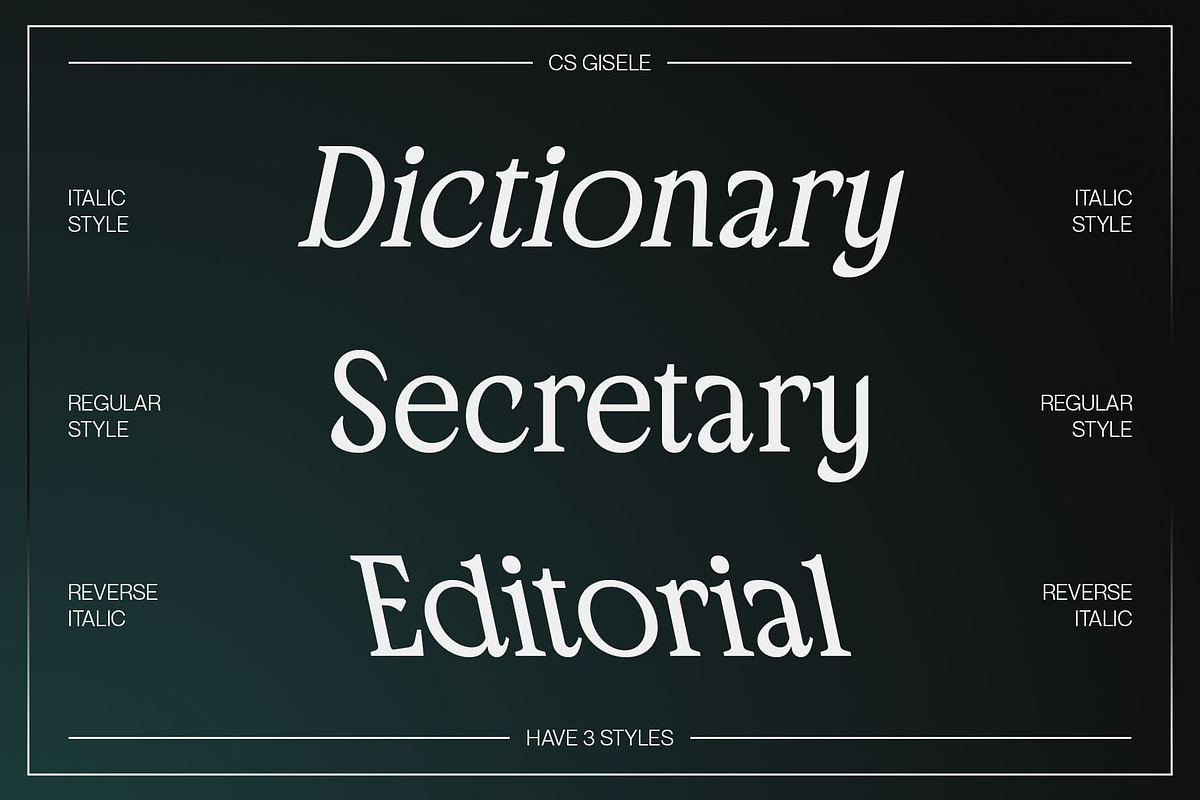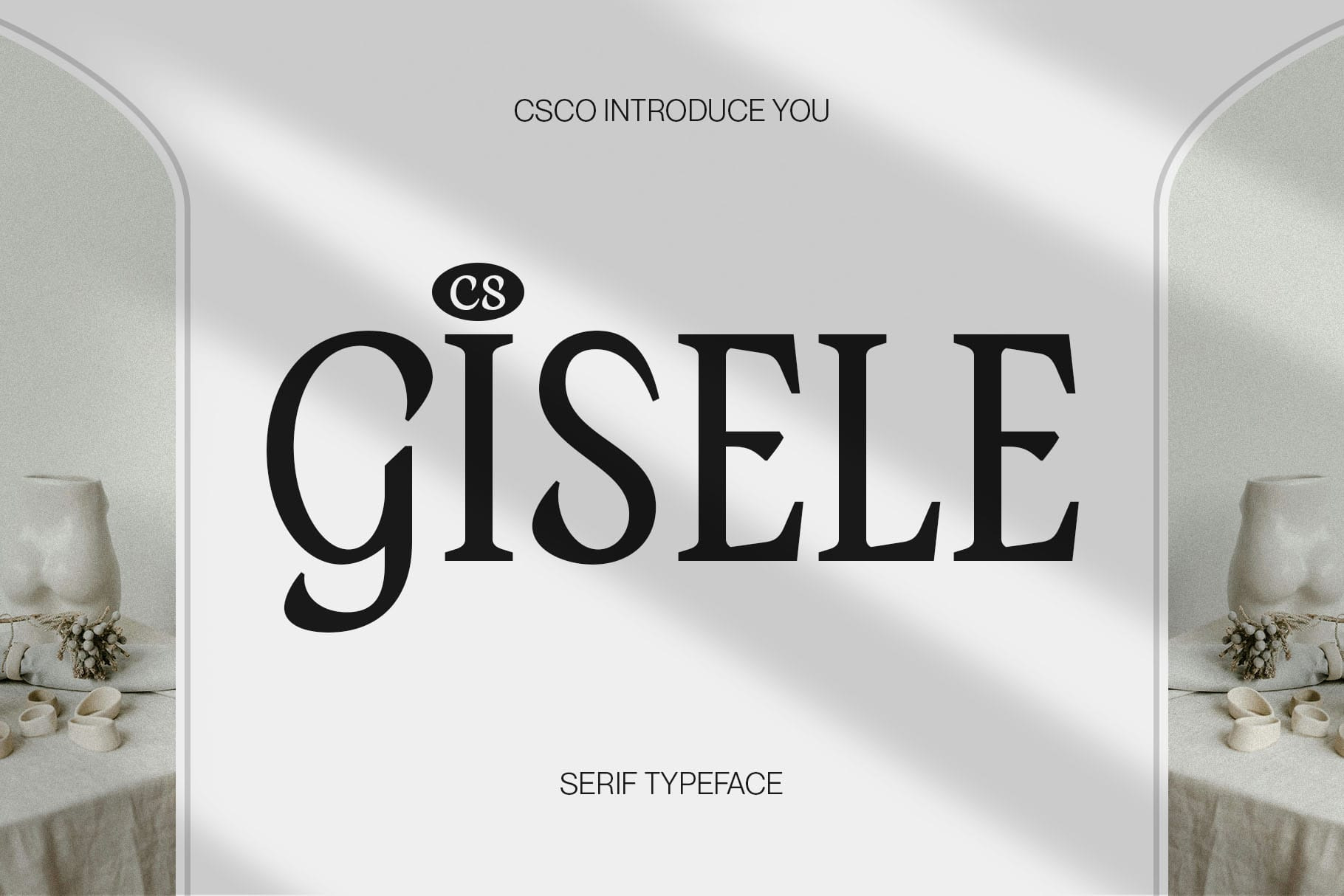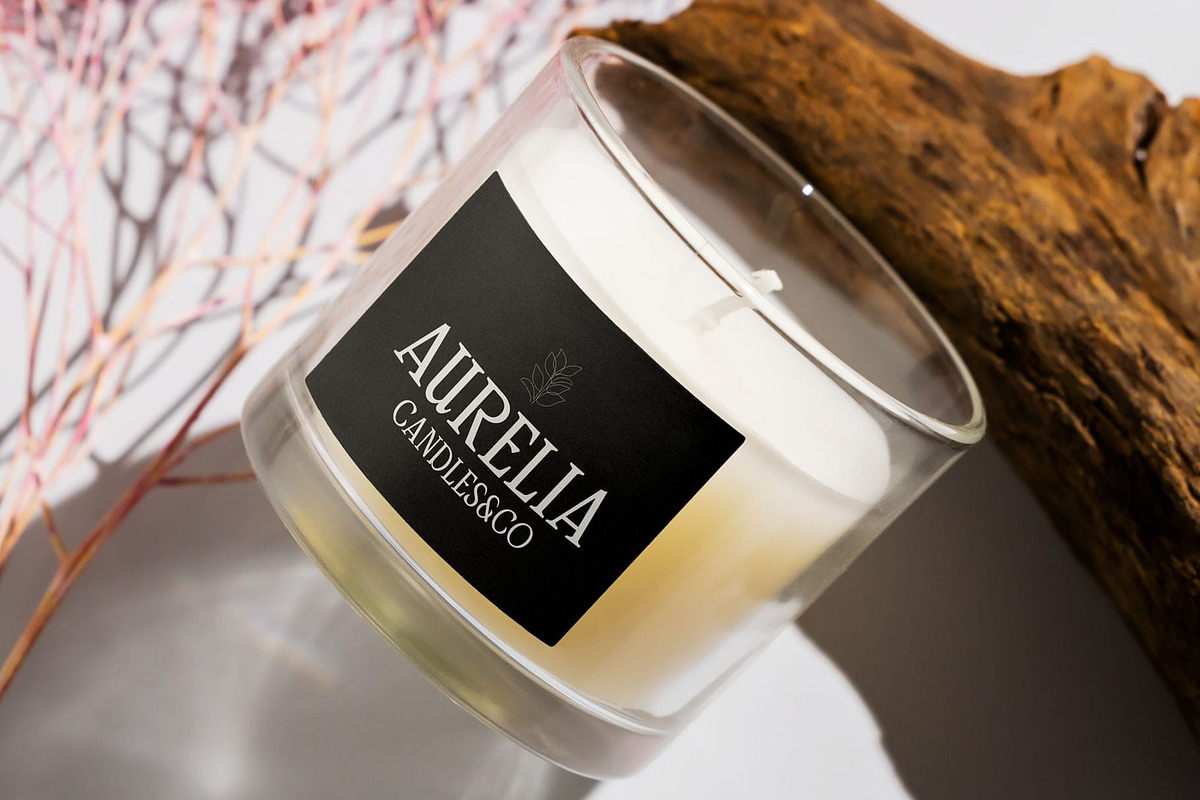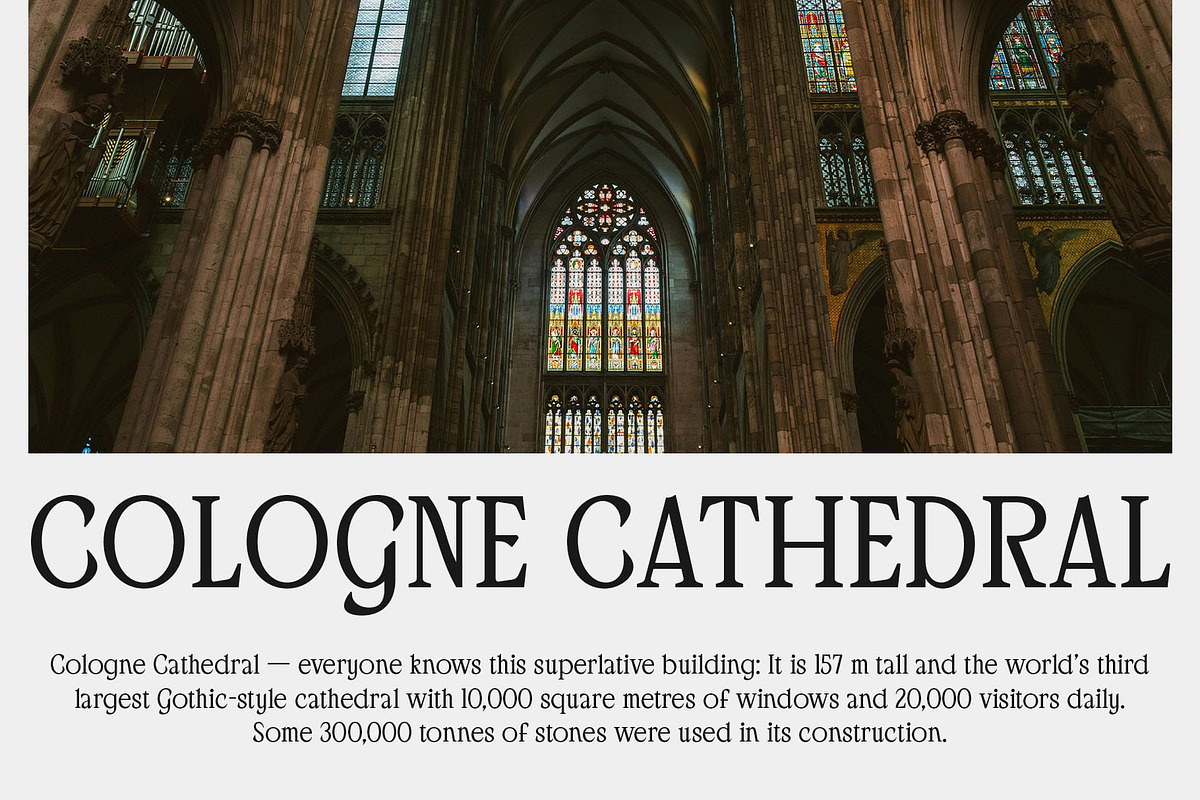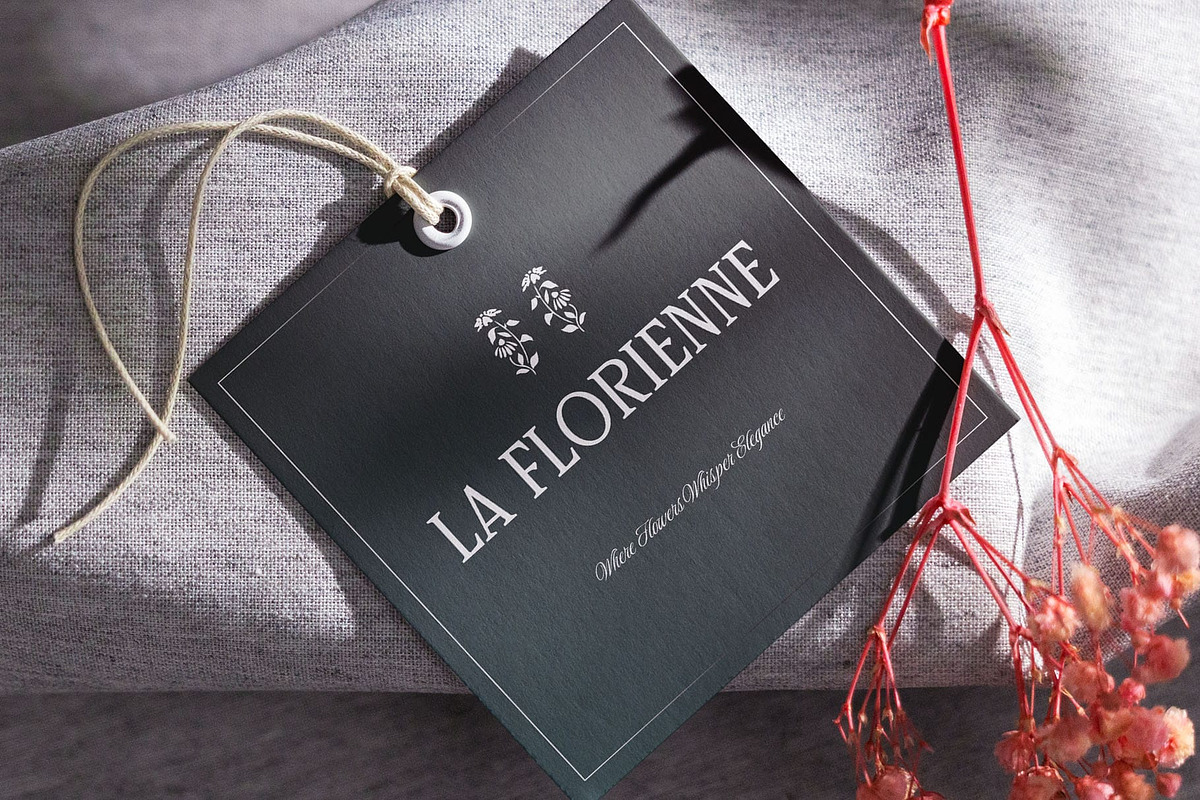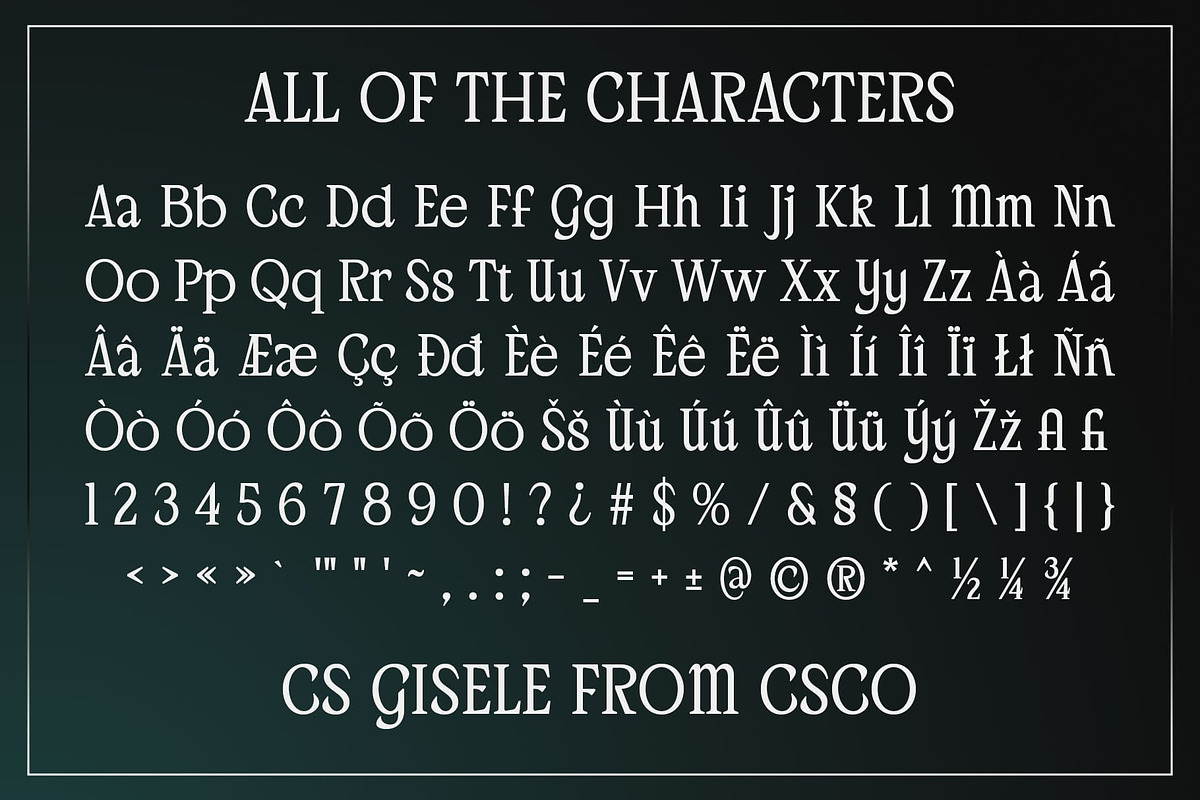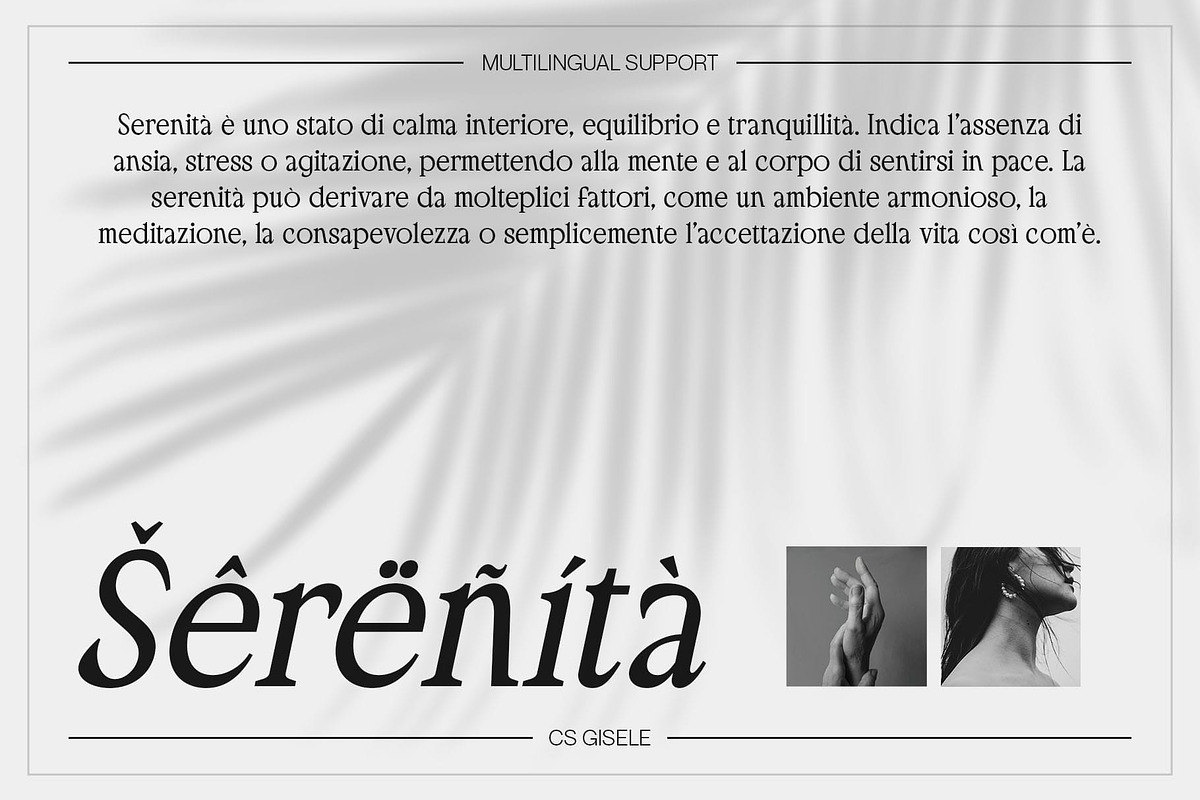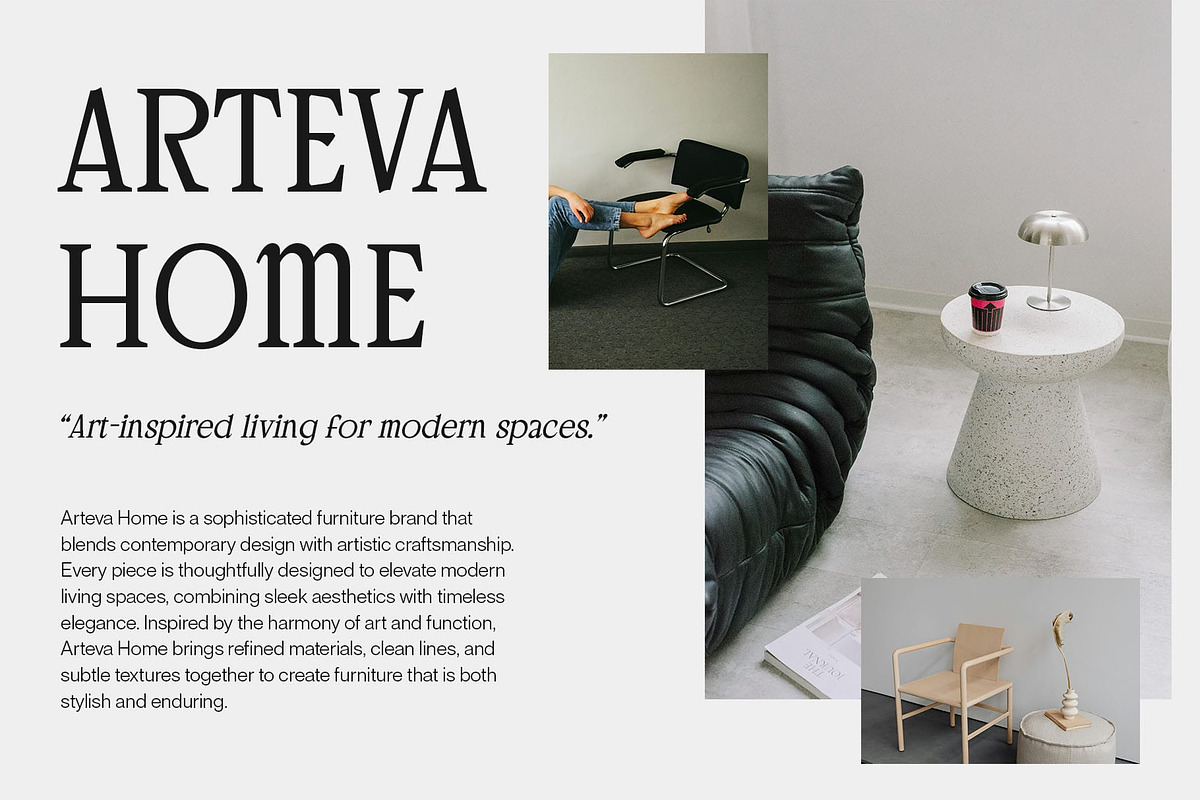
CS Gisele – Modern Font
CS Gisele – Modern Font: Elegance in Every Detail
A Modern Serif with a Contemporary Touch CS Gisele – Modern Font is a refined serif typeface that seamlessly blends clean lines with subtle yet striking details. Designed for sophistication and high readability, it features a balanced contrast between thick and thin strokes, creating a graceful and polished look. This font is crafted to add an air of elegance and modernity, making it a standout choice for luxury branding, editorial design, and formal invitations.
Smooth, Sophisticated Letterforms for a Timeless Appeal With its smooth edges and delicate curves, CS Gisele embodies a sense of timeless elegance with a contemporary twist. The precise and carefully proportioned letterforms create a fluid reading experience while maintaining a strong visual presence. Whether used for high-end magazines, minimalist brand identities, or refined advertising campaigns, this font delivers a polished and sophisticated aesthetic.
Perfect for Elegant and Professional Applications CS Gisele exudes professionalism, refinement, and luxury, making it the ideal font for editorial layouts, premium invitations, corporate presentations, and branding that demands high aesthetic value. Its stylish yet structured form allows it to seamlessly adapt to both digital and print media, ensuring a consistent and high-class presentation across all platforms.
- CS Gisele Regular
- CS Gisele Italic
- CS Gisele Reverse Italic